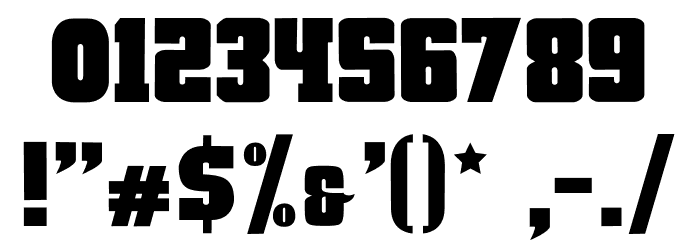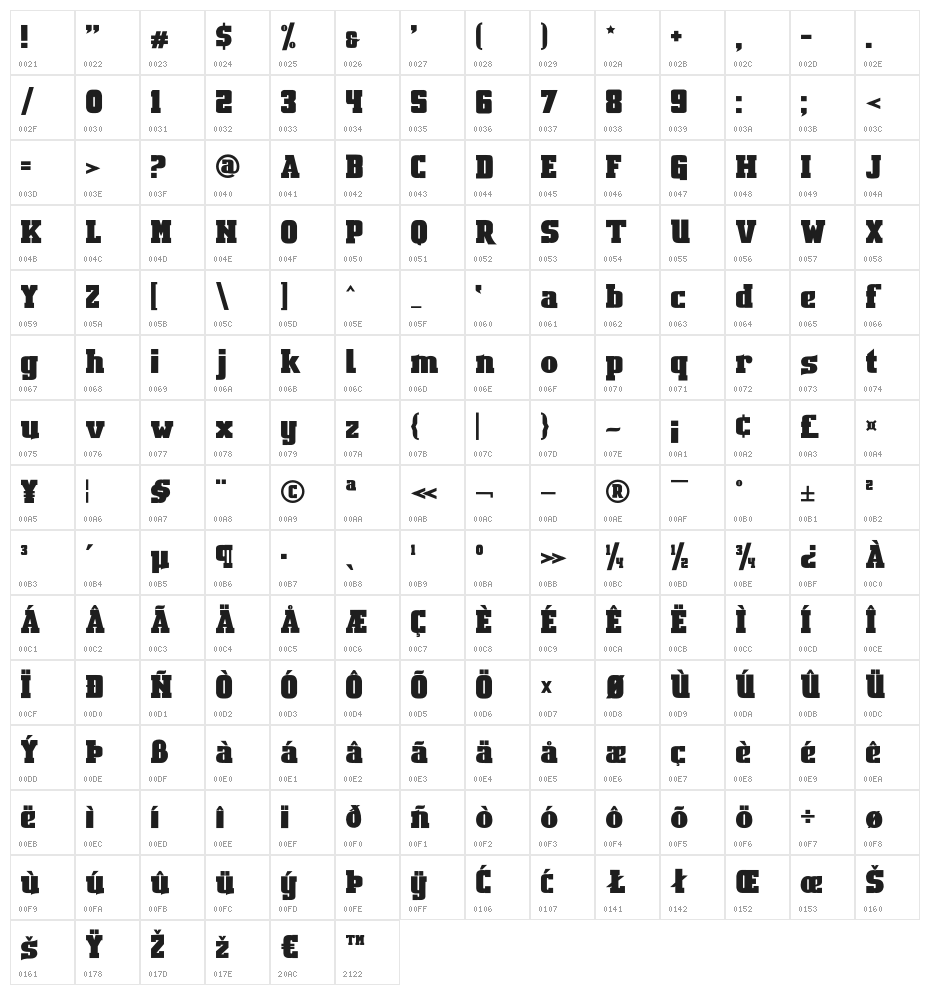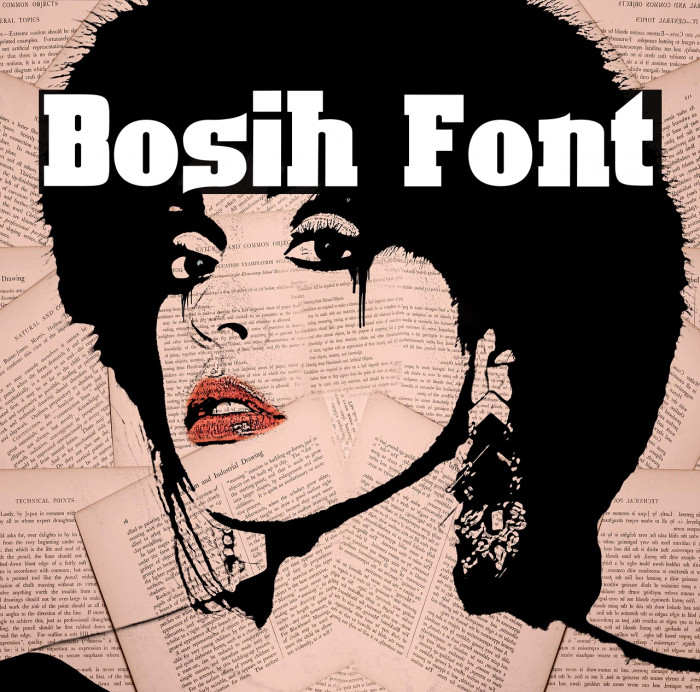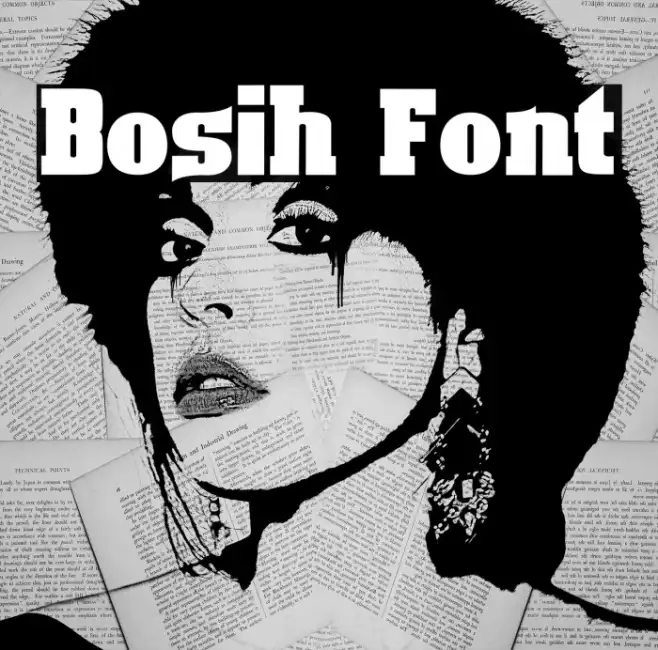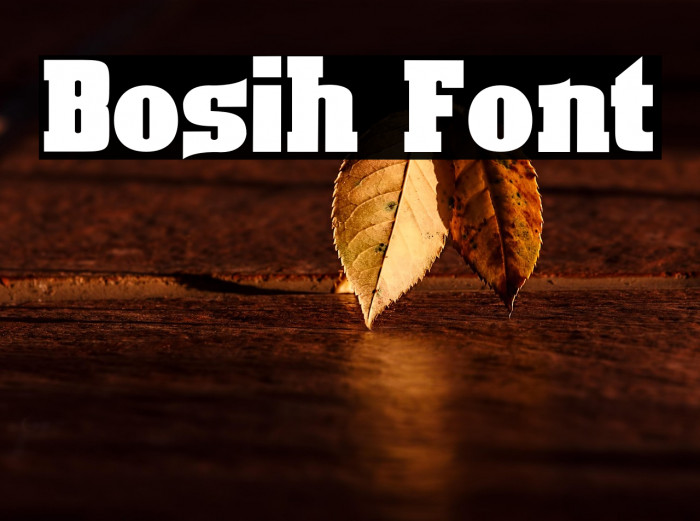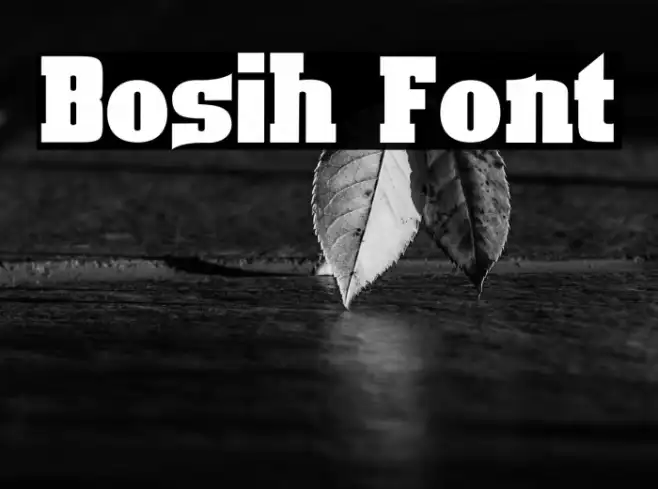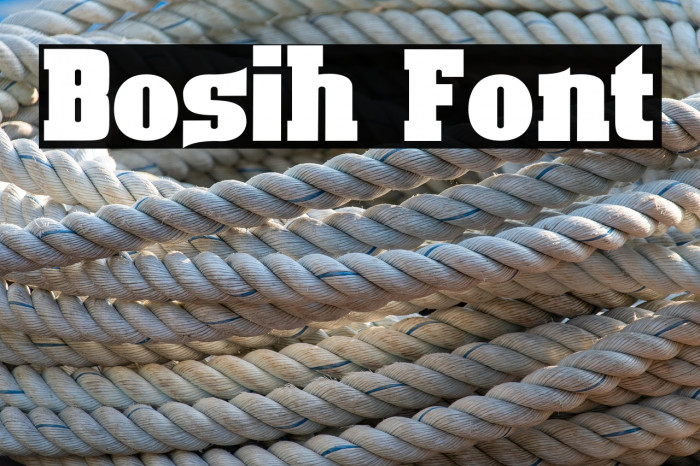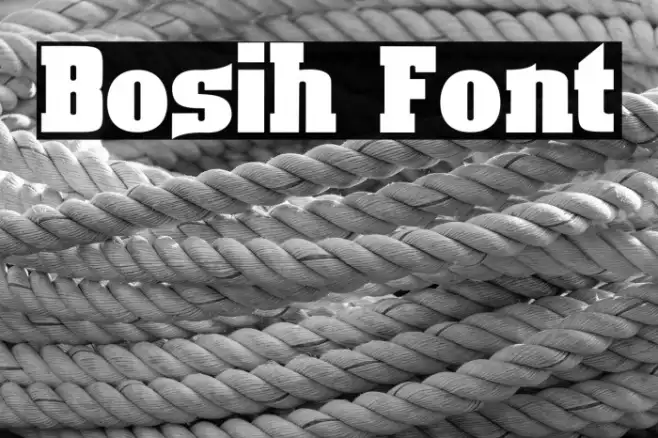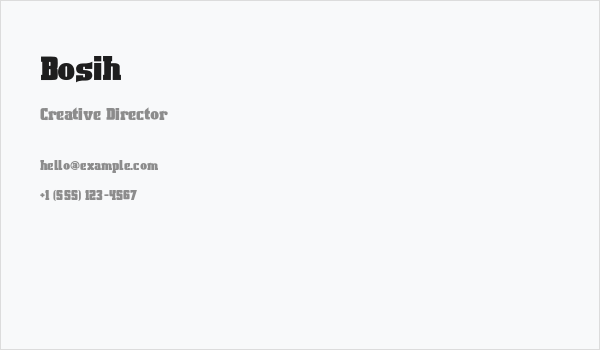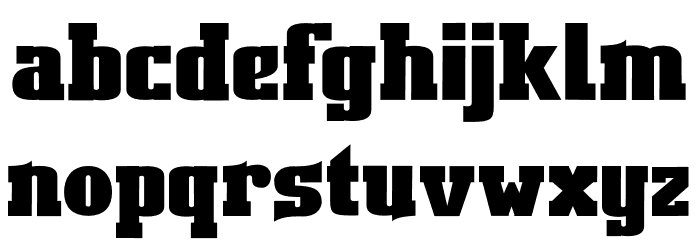
Bosih Font
Bosih Description
This font features bold, blocky characters with a strong presence, making it ideal for impactful designs. The uppercase letters are particularly robust, with thick strokes and a slightly condensed form. The lowercase letters maintain the boldness but offer a slightly more rounded appearance, providing a nice contrast to the uppercase. The numerals are equally bold, ensuring they stand out in any context. Special characters are designed with the same weight and style, ensuring consistency across all text elements. This font is perfect for projects that require a strong, authoritative look.
| Proposed Projects | Ideal for posters, headlines, logos, and branding materials that need a strong visual impact. |